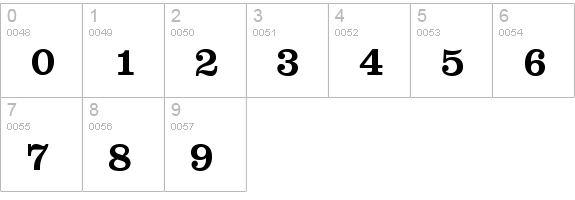
Clarendon Heavy Font Details
Clarendon Heavy is a heavy, high-impact variant in the Clarendon typeface family \xE2\x80\x94 well suited to high-impact headlines, posters, and display advertising.
Clarendon Heavy font is a bold and commanding typeface that exudes strength and authority. Its thick strokes and sturdy serifs give it a timeless and classic appeal, making it perfect for headlines, titles, and branding projects that require a strong visual impact. The Clarendon Heavy font is versatile and can be used in various design applications to create a bold statement. Best of all, Clarendon Heavy font is available to download for free at FontsMarket.com. This means that you can easily access this powerful typeface without any cost, making it a valuable addition to your font library. Whether you're a designer looking to enhance your projects or a business owner seeking a distinctive font for your branding, Clarendon Heavy font offers a high-quality solution that won't break the bank. Download it today and elevate your designs with this impactful and striking typeface.